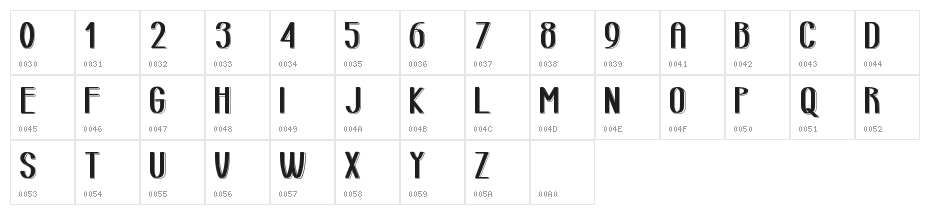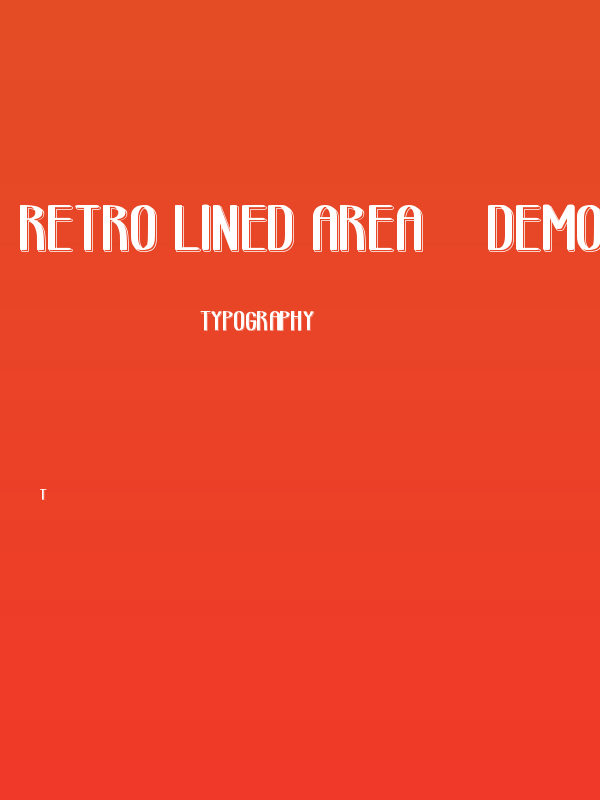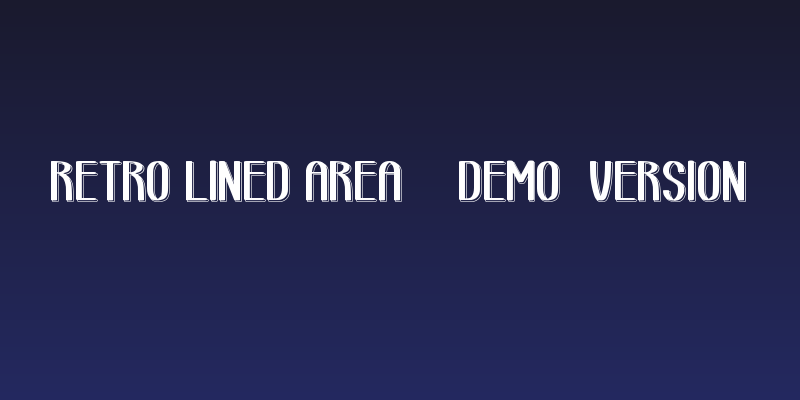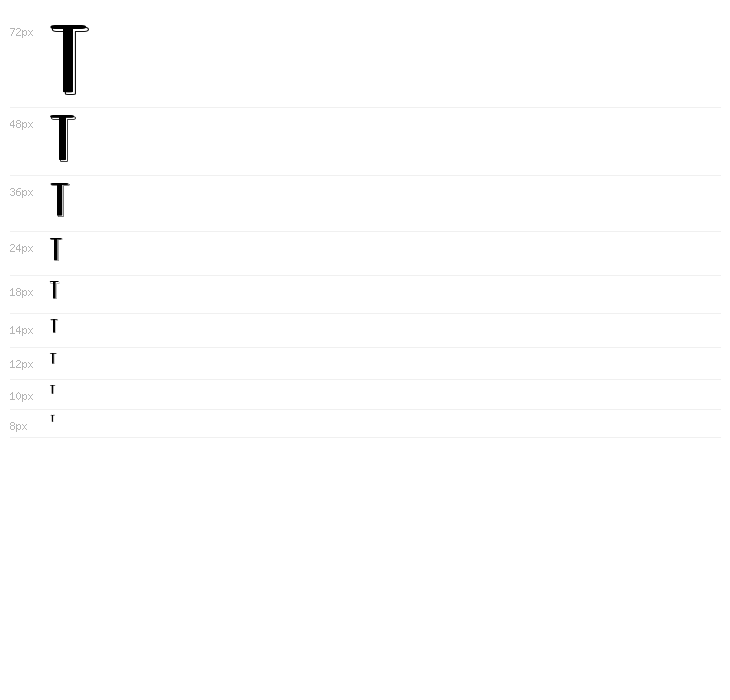
retro lined area__demo-version Font
retro lined area__demo-version Description
This font features a bold, retro-inspired design with distinct line work that creates a sense of depth and dimension. The characters are uppercase with a unique shadow effect that gives them a three-dimensional appearance. The numbers follow the same stylistic approach, ensuring consistency across all elements. The overall style is reminiscent of vintage signage, making it ideal for projects that require a nostalgic or classic touch. The font's boldness and decorative elements make it stand out, perfect for eye-catching headlines or logos.
| Proposed Projects | Ideal for vintage-themed posters, retro branding, eye-catching headlines, and logo designs. |